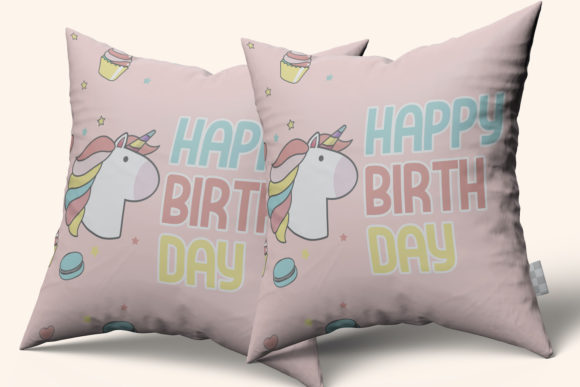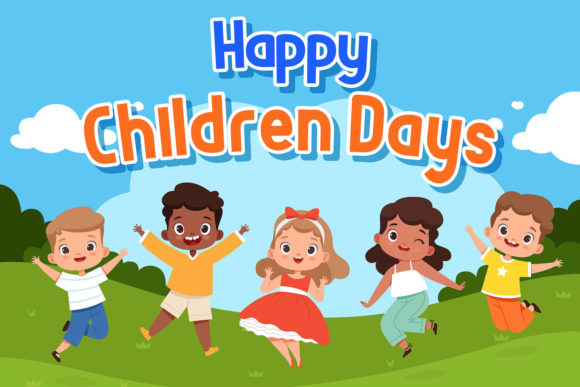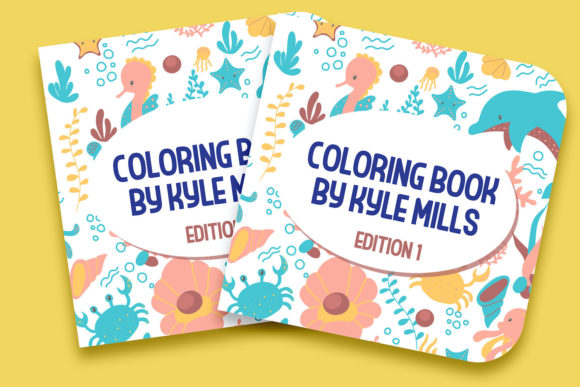
Introduction to Ronaldi Guje Font
Have you ever found yourself staring at a blank page, struggling to come up with the perfect font to bring your creative project to life? It’s a familiar feeling for many designers, but what if we told you that there’s a solution right around the corner? Enter the Ronaldi Guje Font, a modern and playful display font that’s guaranteed to add a touch of sophistication to any design project.
Whether you’re working on a high-quality design resource or a UI project, the Ronaldi Guje Font is the perfect addition to take your work to the next level. Its techno aspect makes it an ideal choice for titles, subtitles, and UI elements, while its transparent background allows for seamless integration with any design. And the best part? It’s available for free download, making it a valuable resource for designers of all levels.
- Perfect for use in digital and print media, including logos, typography, and graphics
Honest Review: Ronaldi Guje Font
I recently came across the Ronaldi Guje Font, and I must say it’s a unique addition to any design resource. The font’s high quality and creative design make it perfect for a wide range of projects.
- ✨ Unique and modern design that sets it apart from other fonts
- ✨ High quality and clear typography, making it great for reading and understanding
- ⚠️ Limited font sizes and styles, which may limit its versatility
- ⚠️ The transparent background option may not be ideal for all designs, depending on the project’s requirements
Overall, the Ronaldi Guje Font is a solid choice for any creative project, especially those with a modern and minimalist aesthetic. While it may not be perfect, its unique design and high quality make it a great addition to any design resource. I would recommend giving it a try, especially if you’re looking for a free download.
Ronaldi Guje Font
The Ronaldi Guje Font is a high-quality design resource ideal for creative projects. This free download offers a unique and stylish font that can elevate any design.
Tips for Getting the Most Out of Ronaldi Guje Font
To get the most out of the Ronaldi Guje Font, use it on a transparent background to create a unique and stylish design. This font is ideal for creative projects such as logos, business cards, and social media graphics.
The Ronaldi Guje Font is commonly used for:
- Logos and branding
- Social media graphics and advertising
- Wedding invitations and event materials
Alternatives to Ronaldi Guje Font
Nunito Font
Nunito Font is a high-quality sans-serif font perfect for designers working on creative projects. It features a clean and modern design with a transparent background, making it ideal for use on websites, social media, and digital applications.
Nunito Font is a great alternative to Ronaldi Guje Font as it offers a more minimalist and elegant look. While Ronaldi Guje Font is more playful and cursive, Nunito Font is better suited for projects that require a clean and sophisticated design.
Great Vibes Font is a beautiful and elegant script font ideal for designers working on creative projects that require a touch of sophistication. It features a high-quality design with a transparent background, making it perfect for use on websites, invitations, and wedding materials.
Great Vibes Font is a great alternative to Ronaldi Guje Font as it offers a more refined and elegant look. While Ronaldi Guje Font is more playful and cursive, Great Vibes Font is better suited for projects that require a touch of luxury and sophistication.